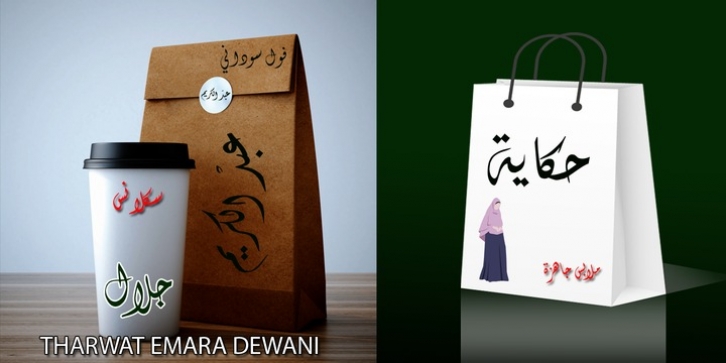
The Dewani font is a font of original Arabic fonts and is specialized in writing in the offices of the Sultan and the kings of the Arabs.
It is also one of the most beautiful Arabic fonts as it has the flexibility to write official graduation certificates, certificates of appreciation, scientific progress and decorations.
It is also commonly used in writing posters and sequences for serials, films, medals and decorations on clothes.
The Dewani font has its aesthetics derived from its round and interlocking letters.